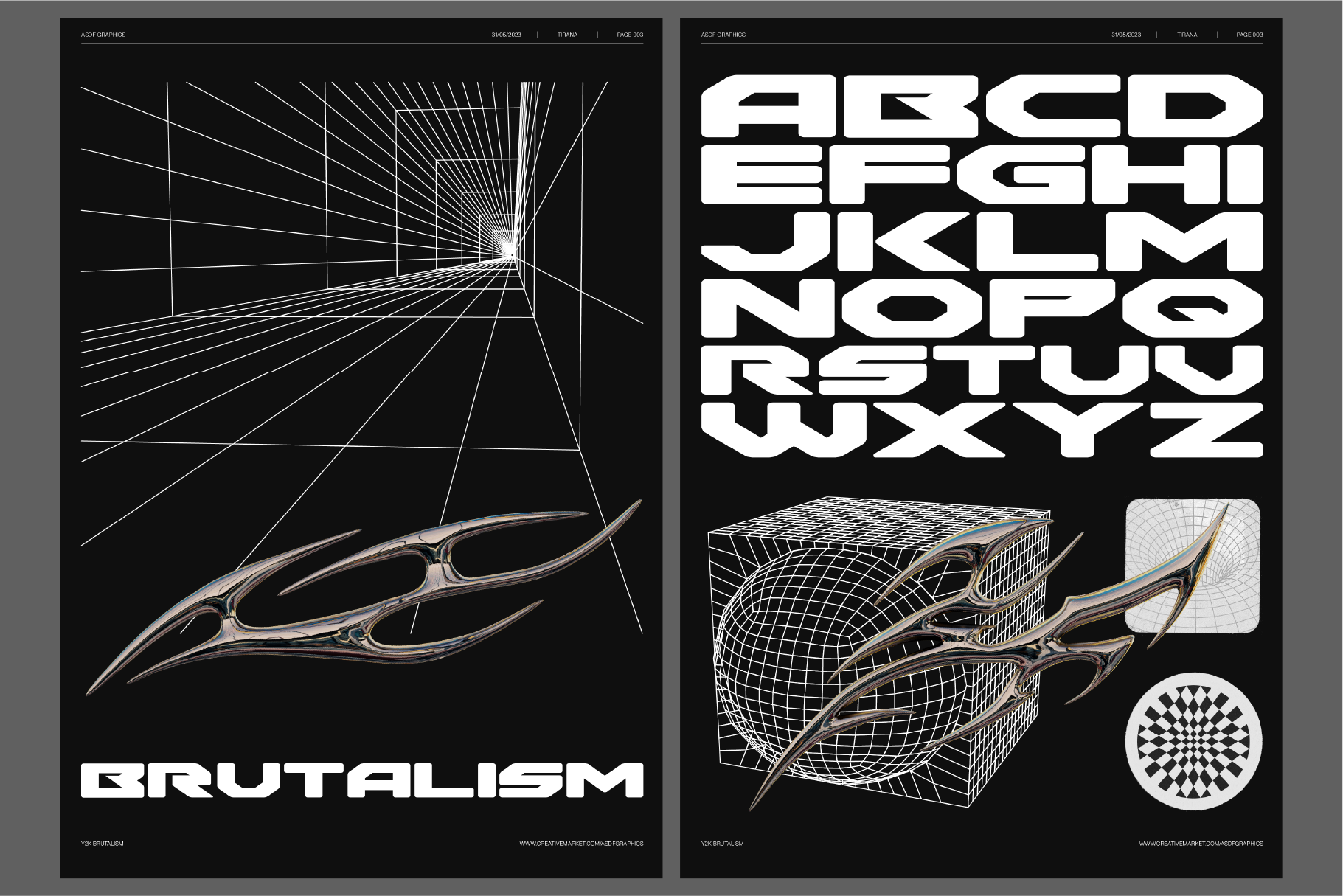
THREADS FONT Y2K BRUTALISM ACID GFX
THREADS FONT - Y2K BRUTALISM FONT - ACID GRAPHICS TYPOGRAPHY TECHNO RAVE 2024 Typeface. A Modern and Elegant Typeface.
A metamodern grotesk font retaining the elegance and style. Made for text display purposes, Y2K Brutalism brings a modern , sharp and strong impression to your design. With a bold acid style, suitable as the main text / header text on a poster , music artworks , website design, t-shirt print, book cover etc.